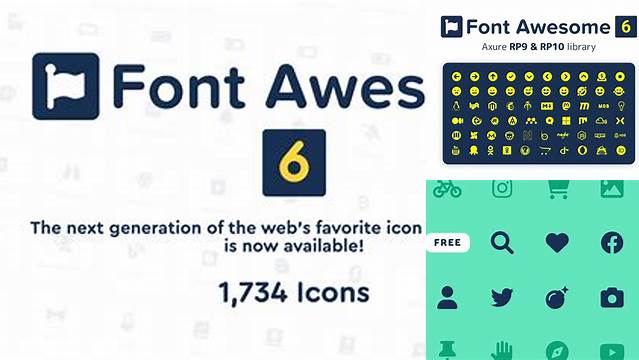
Font Awesome 6 Free: Your Guide To Free Icons
Hey guys! Are you ready to dive into the awesome world of Font Awesome 6 Free? This incredible icon library is a game-changer for web developers, designers, and anyone who wants to add a touch of visual flair to their projects. In this article, we're going to explore everything you need to know about Font Awesome 6 Free, from its features and benefits to how you can get started using it today. So, buckle up and let's get icon-tastic!
What is Font Awesome 6 Free?
Font Awesome 6 Free is a massive library of scalable vector icons that you can use on your websites, apps, and other projects. Unlike traditional image-based icons, Font Awesome icons are rendered using CSS, which means they look crisp and clear at any size. Plus, they're super easy to customize with CSS styles, so you can match them perfectly to your brand's aesthetic.
The "Free" version of Font Awesome 6 includes thousands of icons covering a wide range of categories, from basic UI elements to social media logos and more. Whether you're building a sleek new website, designing a user-friendly app interface, or creating eye-catching marketing materials, Font Awesome 6 Free has got you covered. This comprehensive icon set is a fundamental resource for any designer or developer looking to enhance their projects with professional-grade visuals. Using vector icons ensures that your designs remain sharp and clear across various devices and screen resolutions, which is crucial for maintaining a consistent user experience. Furthermore, Font Awesome’s versatility extends beyond web design; you can also use these icons in print materials, presentations, and other digital media.
The beauty of Font Awesome lies in its simplicity and flexibility. The icons are incredibly easy to implement, requiring just a few lines of code to add them to your project. You can adjust their size, color, and even add animations using CSS, giving you complete control over their appearance. This level of customization means that Font Awesome icons can seamlessly integrate into any design, enhancing both the visual appeal and the functionality of your website or application. Additionally, Font Awesome is continuously updated with new icons and features, ensuring that you always have access to the latest and greatest tools for your design needs. Whether you're a seasoned professional or just starting out, Font Awesome 6 Free offers a powerful and user-friendly solution for all your icon needs.
Moreover, the performance benefits of using Font Awesome cannot be overstated. Because the icons are vector-based, they are incredibly lightweight, which helps to reduce page load times and improve overall website performance. This is a significant advantage over traditional raster images, which can be quite large and slow down your site. By using Font Awesome, you’re not only enhancing the visual appeal of your project but also optimizing its performance, which is crucial for user engagement and SEO rankings. The ease of integration also extends to various frameworks and platforms, making it a versatile choice for different types of projects. Whether you're working with React, Angular, Vue.js, or plain HTML and CSS, Font Awesome can be seamlessly incorporated into your workflow, saving you time and effort. This adaptability makes it an indispensable tool for developers and designers alike.
Key Features and Benefits
So, what makes Font Awesome 6 Free so awesome? Let's break down some of its key features and benefits:
- Tons of Icons: Seriously, there are thousands of icons in the free version. You'll find everything from basic arrows and buttons to social media logos and specialized icons for various industries. The sheer variety ensures that you can find the perfect icon for virtually any use case, enhancing the visual communication of your project. Each icon is meticulously designed to maintain consistency and clarity, ensuring a professional look and feel across your website or application. With such a vast library, you can easily create intuitive user interfaces and visually appealing content.
- Scalable Vectors: As we mentioned earlier, Font Awesome icons are vector-based. This means they look sharp at any size, whether you're displaying them on a tiny mobile screen or a massive desktop monitor. This scalability is a critical advantage for modern web design, where responsiveness is key. Unlike raster images that can become pixelated or blurry when scaled, vector icons retain their crispness and detail, providing a consistent visual experience across all devices. This ensures that your website looks professional and polished, regardless of the screen size or resolution.
- Easy to Customize: You can easily change the size, color, and even add effects to Font Awesome icons using CSS. This gives you complete control over their appearance, allowing you to match them perfectly to your brand's style. Customization is a breeze with CSS, where you can apply various styles such as color, size, rotation, and even animations. This level of control allows you to create a unique visual identity for your project, ensuring that your icons seamlessly integrate with your overall design. Furthermore, the ability to customize icons makes them highly versatile, suitable for a wide range of applications and design styles.
- Accessibility: Font Awesome icons are designed with accessibility in mind. They use semantic HTML and ARIA attributes, making them screen reader-friendly. This ensures that your website is usable by everyone, including people with disabilities. Accessibility is a crucial aspect of web design, and Font Awesome helps you create inclusive experiences. By using appropriate HTML and ARIA attributes, you can ensure that your icons are properly interpreted by assistive technologies, such as screen readers. This not only improves usability for people with disabilities but also enhances the overall user experience of your website.
- Free (with Options): The best part? Font Awesome 6 has a free version that's packed with features. If you need even more icons and advanced features, there's also a Pro version available. The free version is incredibly generous, offering a vast collection of icons that cater to most design needs. However, the Pro version provides access to thousands of additional icons, advanced styling options, and exclusive features such as official icon components for popular frameworks like React, Vue, and Angular. This tiered approach allows you to choose the plan that best suits your budget and requirements, making Font Awesome a flexible solution for projects of any scale.
Font Awesome 6 Free is a fantastic resource for adding icons to your web projects. With its massive library, scalability, and ease of customization, it's a must-have tool for any developer or designer. So, what are you waiting for? Dive in and start using Font Awesome 6 Free today to make your projects look even more awesome! And that's it for today, guys. Happy coding!